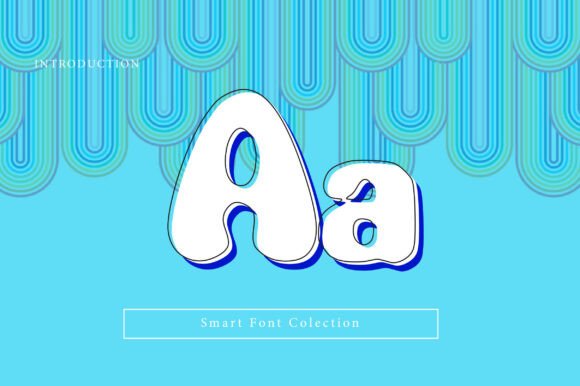
The Groovy World of 70s Daisy Font
I’ll never forget the design project that led me to discover the amazing 70s Daisy font. I was working on a retro-themed poster for a summer music festival, and I was struggling to find the perfect font that captured the essence of the 1970s. That’s when I stumbled upon 70s Daisy, and it instantly transported me back to the era of flower power and psychedelic vibes. With its bold, chunky shapes and soft curves, this font was exactly what I needed to bring my design to life.
An Honest Review of 70s Daisy Font
- ✅ The font’s unique, nostalgic vibe that instantly adds warmth and funky style to any design
- ✅ The “hollow” centers and rounded forms that give it a distinctive, retro feel
- ✅ The versatility of the font, making it perfect for a wide range of design projects, from posters and logos to social media graphics and t-shirts
- ✅ The way it pairs perfectly with a “psychedelic” color palette, think avocados, burnt oranges, and soft creams
While 70s Daisy is an amazing font, there are a few things to keep in mind. For example, some characters may not be suitable for body text due to their bold and decorative nature. Additionally, the font’s uniqueness may not make it the best choice for very formal or professional designs. However, for most creative projects, these quirks are minor and can be easily worked around.
The Backstory of 70s Daisy Font
The 70s Daisy font was inspired by the iconic typography and aesthetics of the 1970s. Imagine a world of floral patterns, bell-bottom jeans, and psychedelic posters. The font’s designer wanted to capture the essence of this era, with its bold, colorful, and playful vibe. The result is a font that’s equal parts nostalgic and modern, perfect for designers and crafters who want to add a touch of retro flair to their projects.
Q: What type of projects is 70s Daisy font best suited for?
A: 70s Daisy is perfect for a wide range of design projects, including posters, logos, packaging, t-shirts, stickers, album covers, social media graphics, and retro branding projects.